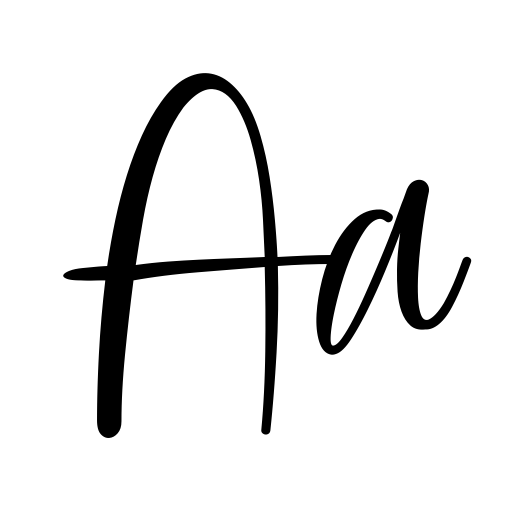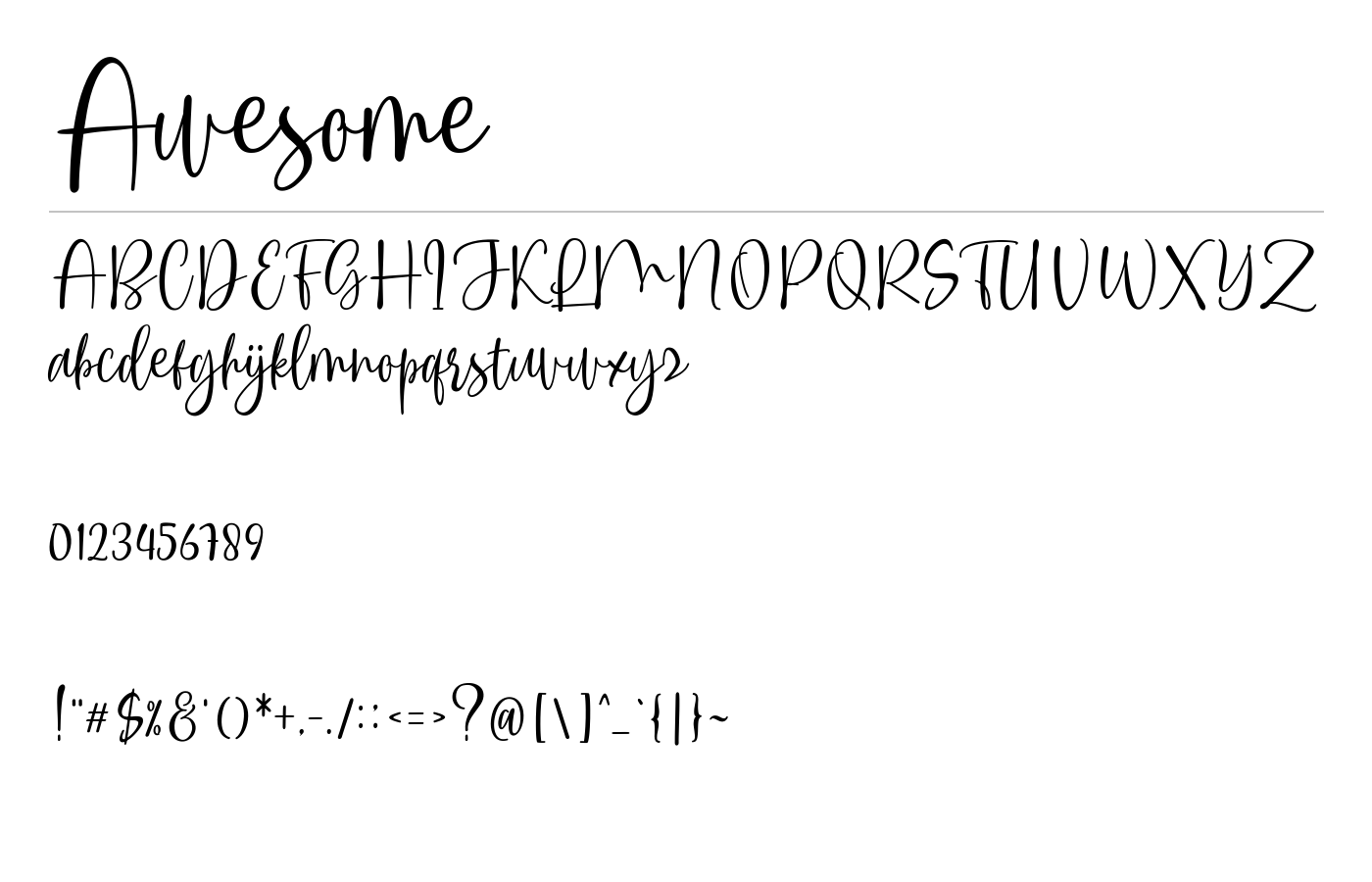
Awesome Font is a playful and elegant script typeface with smooth, flowing strokes and a hand-lettered feel. Its tall, slightly condensed letterforms and lively uppercase characters make it perfect for creative branding, invitations, and eye-catching headlines that need a personal, charming touch. This font works well where a modern yet friendly style is desired, especially in fashion, lifestyle, and artistic projects.
Awesome Font
About Awesome Font